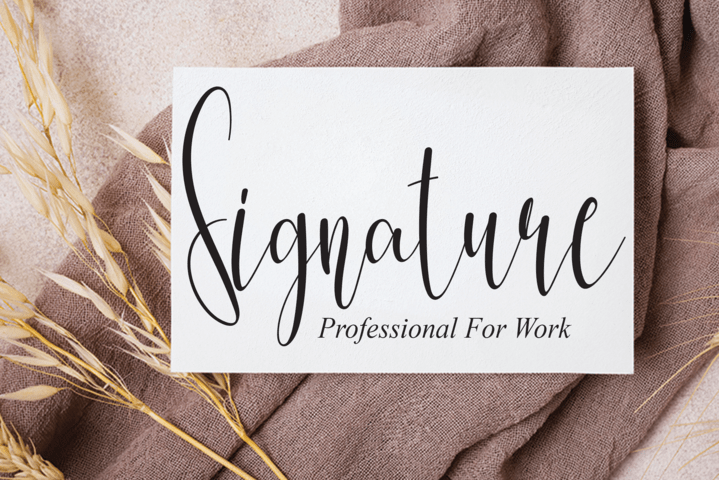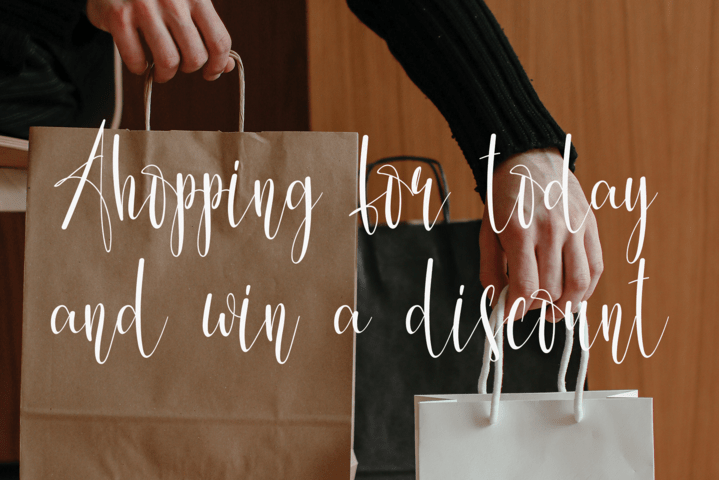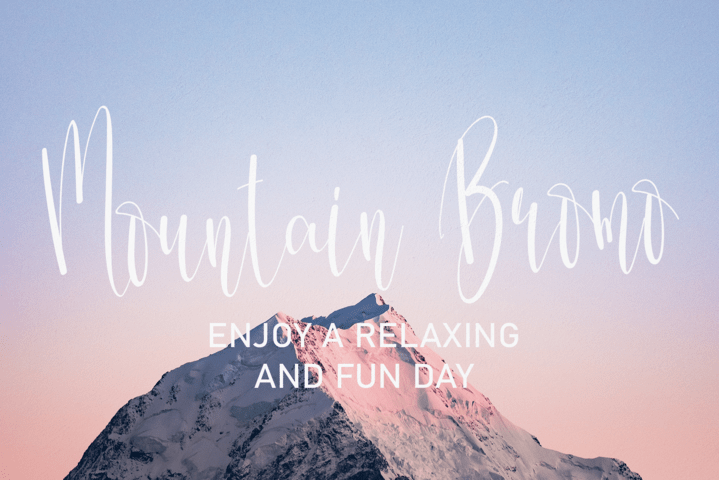
Amsterdam Script Typeface
Amsterdam Script Font
It’s a delicate and elegant handwritten font. Its distinct and well rounded letters make this font a masterpiece. Fall in love with its incredibly versatile style and use it to create spectacular designs!